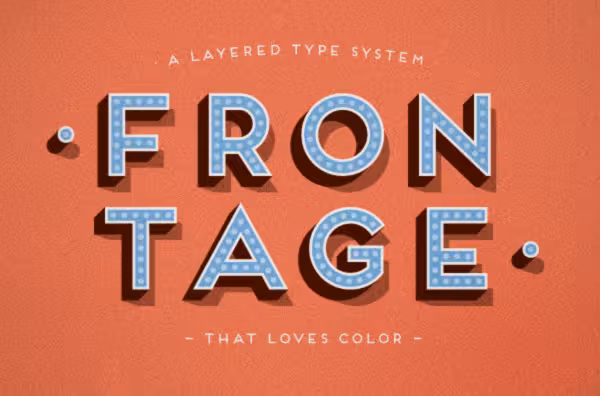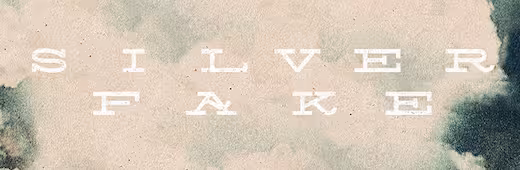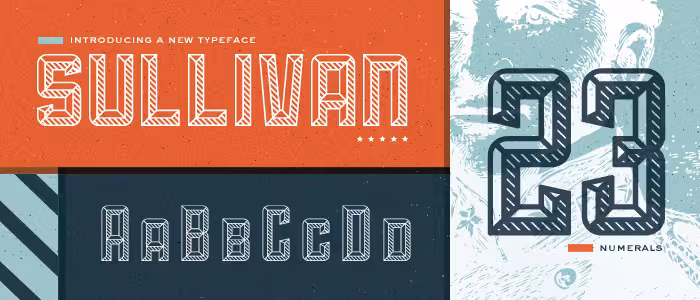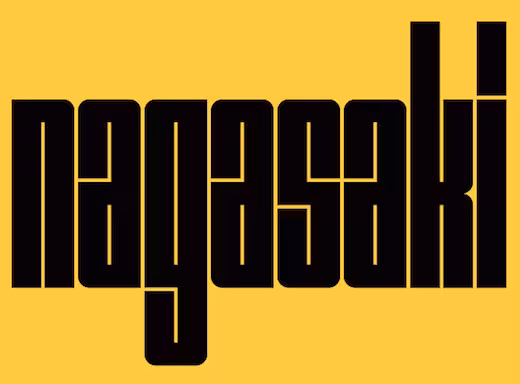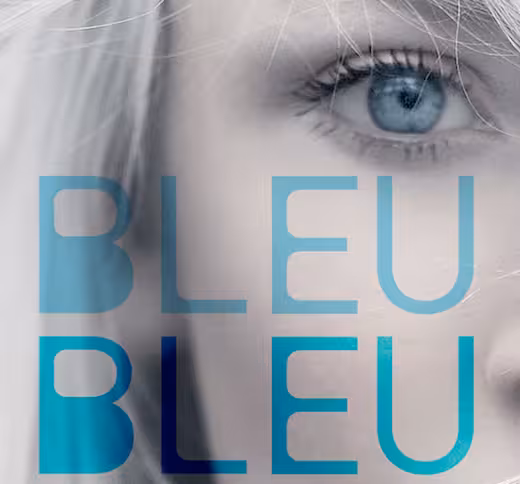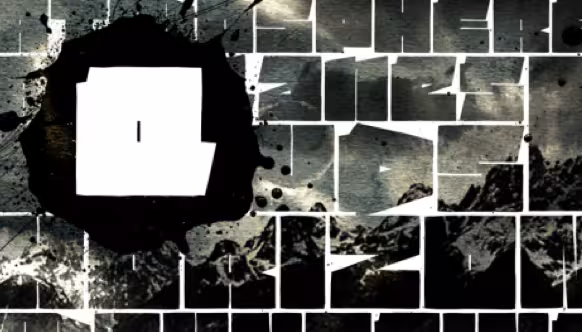
17 Free display and text typefaces you should download right now
The art of type design is for a special breed of designer. The insane attention to detail required to create typefaces is enough to drive the average person crazy, as every subtle curve and rule matters.
If you’re a novice to the world of typography, you’ll most likely be familiar with text type, or fonts created to be legible and readable at small sizes. Display typefaces, on the other hand, are less about legibility (though it is still important), and more about personality, character and distinctiveness.
Both styes are incredibly useful for designers, serving a unique purpose for every project. With this in mind, here’s a list of 17 free display and text typefaces you can download right now:
1. Valentina
This one literally blew me away when I first saw it: “Valentina typeface is a sincere tribute to my grandmother in the form of typography and therefore bears her name. Valentina is a classic didone that follows some of the canons proposed by Bodoni in the eighteenth century but incorporates many of the characteristics of the antique Spanish punches of the time. It is a complete font of 457 glyphs, in which there are 125 alternative lower cases or the 46 ligatures.”
2. Sullivan
Not your traditional modular typeface, Sullivan is a bold display face that comes in three variations. Each can be used effectively on their own or layered for a uniquely modern, industrial effect.
3. Nagasaki
Inspired by the ’57 poster “Hiroshima” designed by Wim Crowell, Nagasaki is a very intense, bold and condensed face. It’s particularly legible in short words and phrases.
4. FV Almelo
“This is an all caps condensed rounded free font ideal for logo design, packaging, headline or editorial design. The capitals are the standard glyphs, if a character has an alternative you’ll find it using lower case. Because of its nod to the past I named it Almelo, city where I was born.”
5. Sablon
Sablon is a handmade EPS font “based on din-bold outlines using the add and subtract circles around the edges.” It’s distinct, with a high-fashion feel.
6. Edding 850
Edding 850 is a free modular font built by the famous Büro Destruct design studio. As the font evolved, it was broken down to its simplest form, based only on the thick and thin strokes, which created a modular system that could be assembled digitally. Read our full review here.
7. Average
Surprisingly legible, Average was created in a very mechanical and scientific process. From the creator:  “Average is a typeface that emerged from a long process of research into text typeface families from various different historical periods, both classical and contemprary. The idea was to design an average font for use in text, through a lengthy process of shape measurement and data gathering in spreadsheets. Once the parameters were defined and best values were selected, the forms for the Average Regular typeface were drawn.”
8. Static
“Static is contemporary free font constructed with strong geometric forms in monospaced style. Applicable for any type of graphic design – web, print, motion graphics etc and perfect for t-shirts and other items like posters, logos.”
9. Bobber
From the creator: “I always liked to draw some typefaces and this is my first slab serif. It’s grid based and it’s called Bobber because it’s vintage style. If you like it and want to use it, just give me a heads up. It is totally free, even for commercial use.”
10. Archive
Archive is a free contemporary font “constructed with strong geometric forms. Applicable for any type of graphic design – web, print, motion graphics etc and perfect for t-shirts and other items like posters, logos.”
11. Handwritten Fonts by Kevin & Amanda
Kevin & Amanda turn submitted samples into fonts, which yield a very authentic look. This style won’t work for most projects, but if you’re ever in need of that handwritten look, this site is basically a never-ending supply.
12. Frontage Outline
“Frontage is a charming layered type system with endless design possibilities using different combinations of fonts and colors. Achieve a realistic 3D effect by adding the shadow font or just use the capital letters of the regular and bold cut for stark artwork.”
Note: only Frontage Outline is free.
13. Silverfake
“Silverfake is a new contemporary slab serif wide free font designed Alexey Frolov a.k.a MRfrukta. He brings us some unique ‘old style’ feeling which is presented in contemporary curves that make the font applicable for both – retro and modern designs.”
17. Oil Can
“Remember when service meant something? This font is inspired by those early day service stations.”
It’s quite quirky, but comes together nicely.